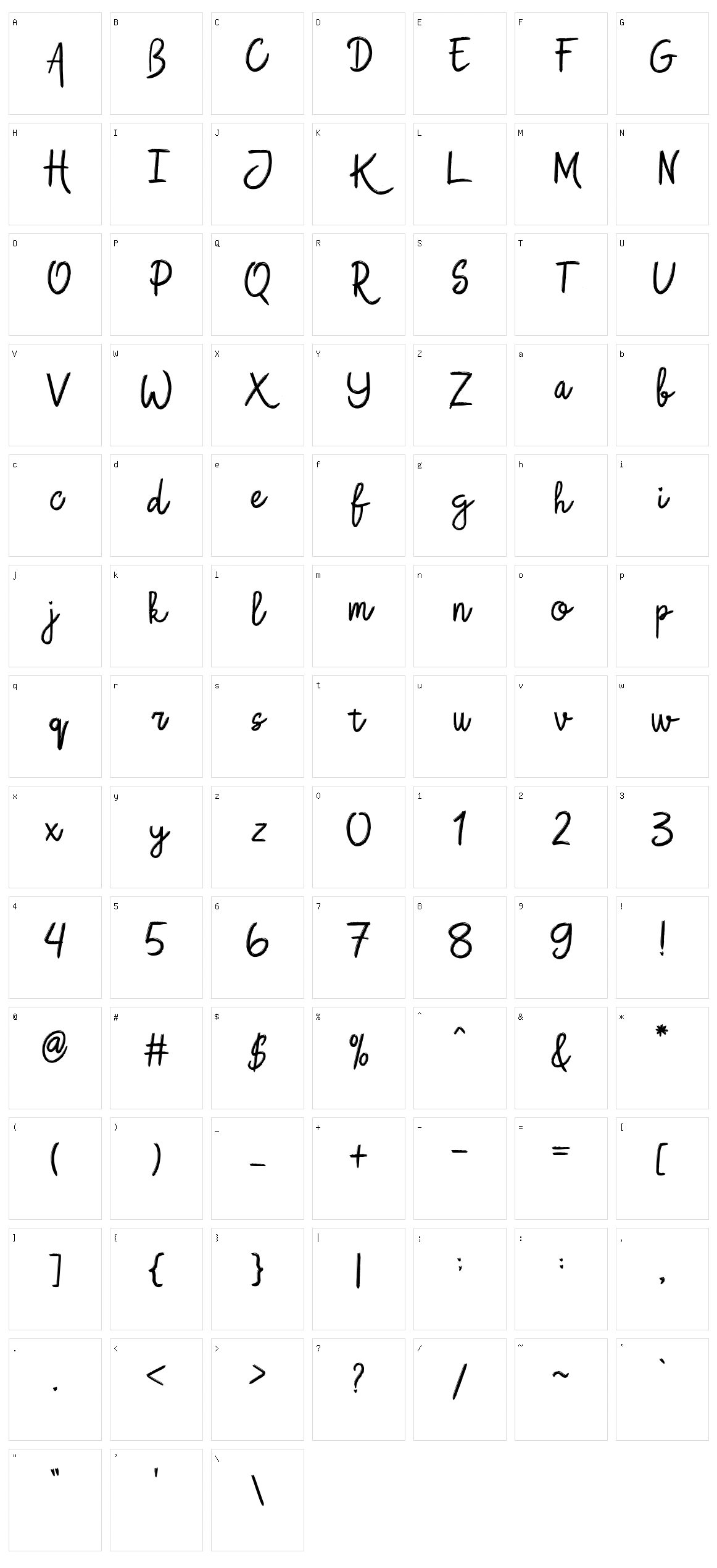
The free font Buchero is carefully designed by Gus Fajar, showcasing a thoughtful balance of creativity and usability and falls under the Script font style. When you download the ZIP file, it contains only 213.16 KB of font files, making it lightweight and quick to download. Please review the license details below to understand permitted usage and distribution rights. If license information is not available, we recommend using this font for personal projects only or contacting the author directly for commercial usage permissions.